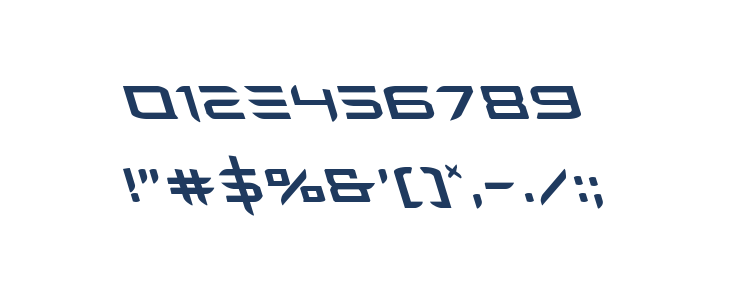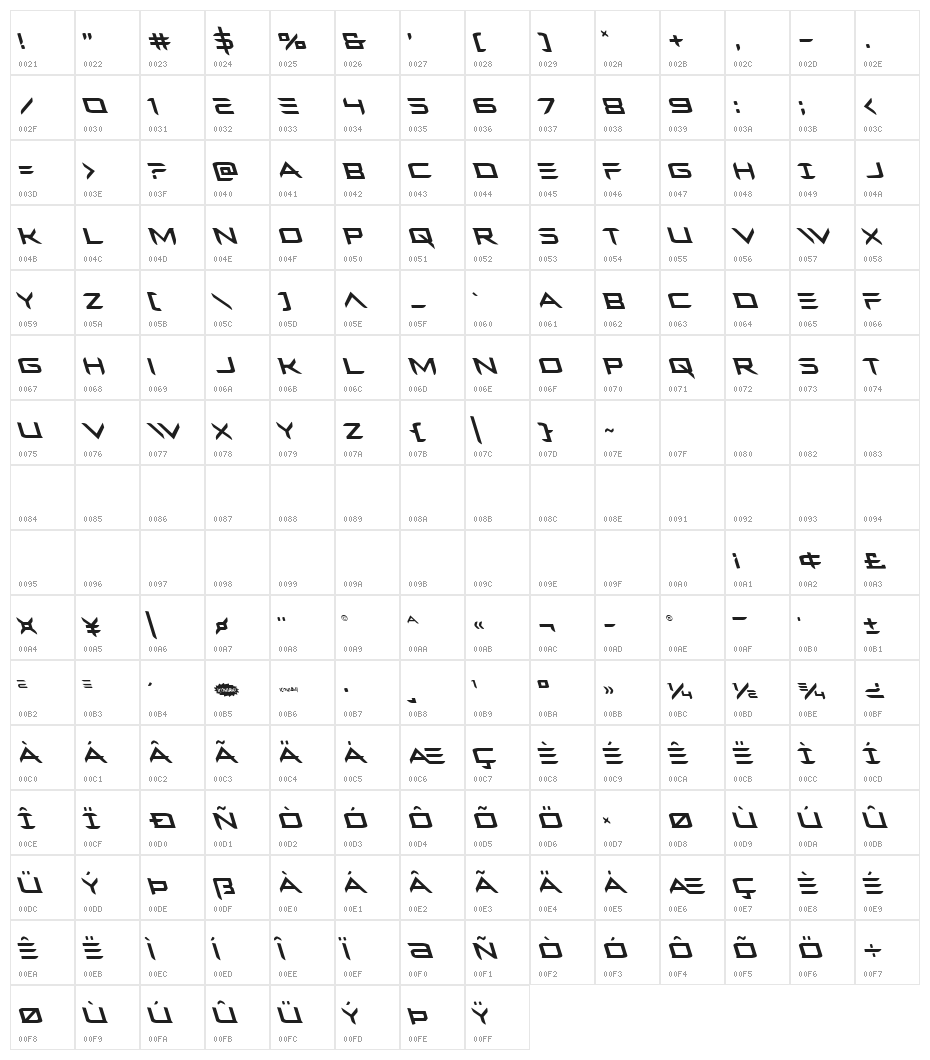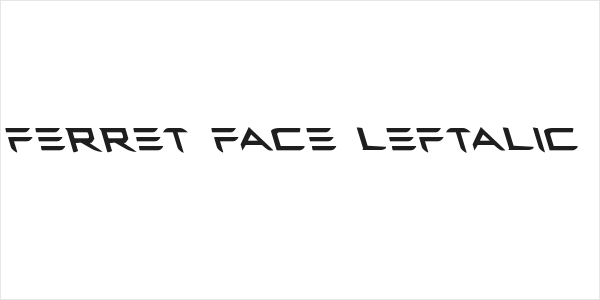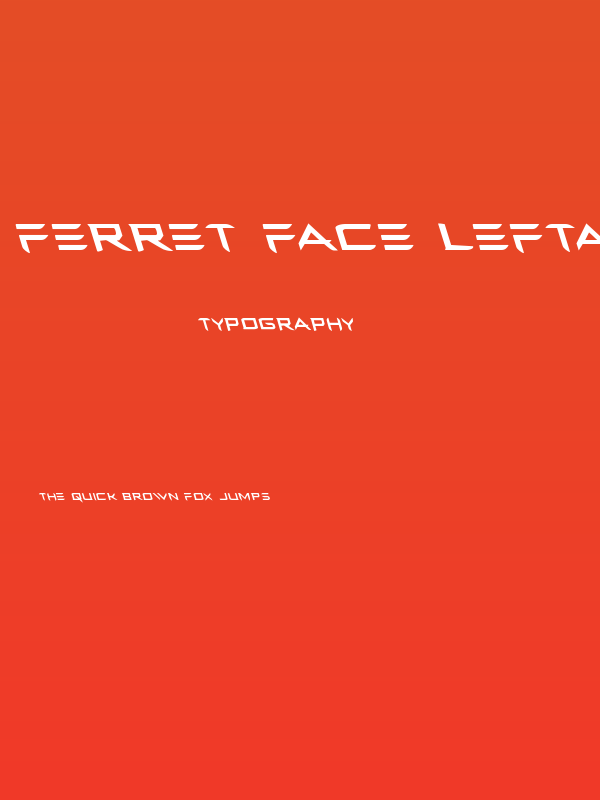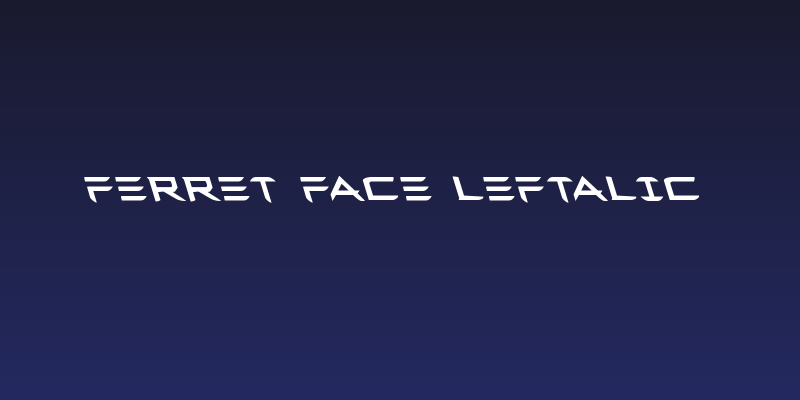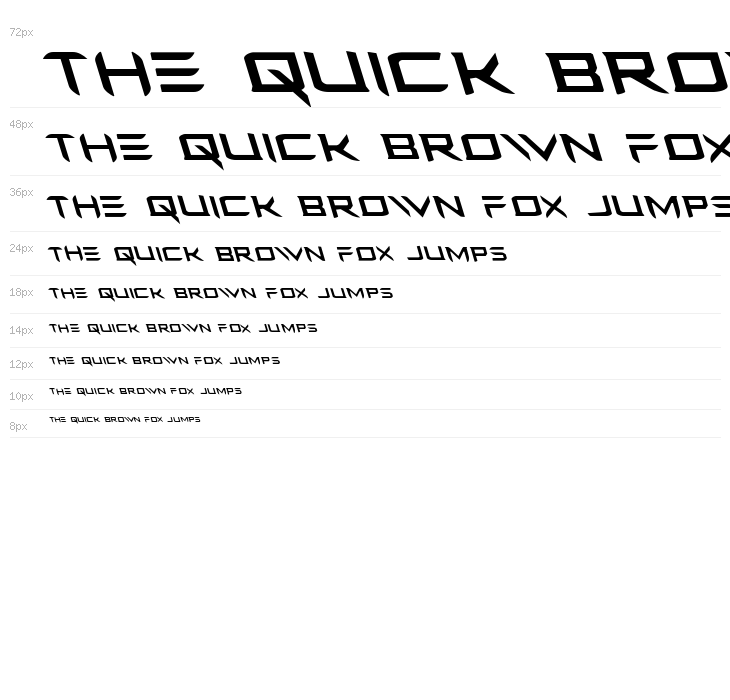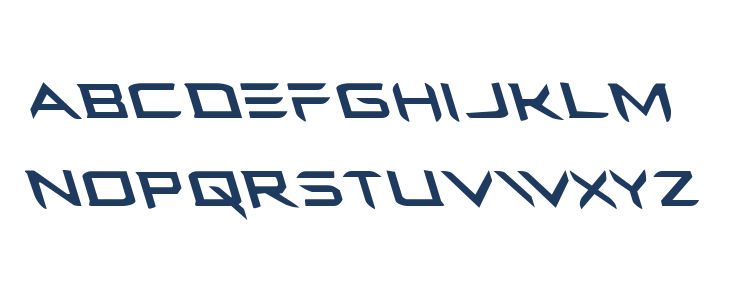
Ferret Face Leftalic Font
Ferret Face Leftalic Description
This font features a futuristic and angular design, characterized by sharp edges and a slanted orientation that gives it a dynamic and forward-moving appearance. The uppercase and lowercase letters maintain a consistent geometric style, with each character exhibiting unique cuts and angles that contribute to its modern aesthetic. The numerals and special characters are designed to match the overall theme, ensuring a cohesive look across all glyphs. This font's distinctive style makes it suitable for projects that require a bold and innovative visual impact.
| Proposed Projects | Ideal for sci-fi themed projects, technology branding, video game titles, and modern advertising campaigns. |